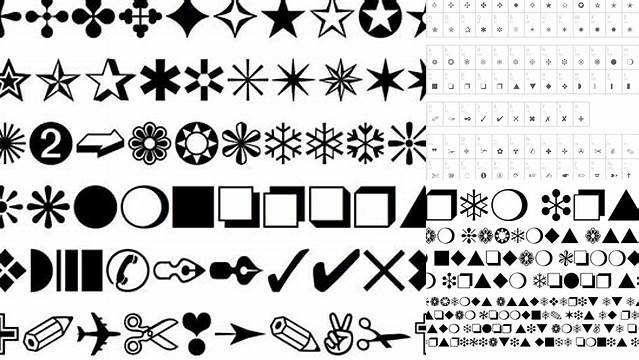
Hey there, design enthusiasts! Ready to dive into the wonderful world of Zapf Dingbats? These quirky symbols are more than just a font; they're a secret weapon for adding flair and personality to your projects. And the best part? You can get the Zapf Dingbats OTF font free download! Let's explore how to snag this fantastic font and how you can use it to spice up your designs.
What Exactly is Zapf Dingbats?
Alright, guys, let's get the basics down. Zapf Dingbats isn't your typical font with letters and numbers. Instead, it's a collection of awesome symbols and decorative elements. Think of it as a treasure chest filled with pointing hands, stars, checkmarks, snowflakes, and a whole bunch of other cool icons. Created by the legendary Hermann Zapf, this font has been around for ages and has become a classic for good reason. It's like having a built-in library of visual cues at your fingertips, perfect for adding a touch of whimsy or emphasizing important information. So, if you're looking to go beyond the standard text, Zapf Dingbats is your go-to font. Using these symbols is super simple, and you can easily incorporate them into your existing designs. It is an absolute blast adding visual interest to your text!
This font is incredibly versatile. You can use it for anything from creating eye-catching bullet points and call-out boxes to designing unique logos and website elements. The possibilities are practically endless! Whether you're working on a professional project or a personal one, Zapf Dingbats can elevate your design and make it more memorable. It's particularly great for adding a touch of personality to formal documents, or for creating a playful feel in invitations and greeting cards. It's also a fantastic choice for highlighting key information in presentations or reports, making your content more engaging and easier to digest. This font truly shines when you're aiming to make your designs stand out from the crowd. It gives you an edge. With its charming collection of symbols, Zapf Dingbats lets you express yourself in a way that words alone sometimes can't. Ready to add a touch of elegance to your designs? The classic nature of the font makes it a timeless choice, ensuring that your designs will look great for years to come. The beauty of Zapf Dingbats lies in its simplicity and elegance. It’s a font that instantly adds a touch of sophistication to your work. So why settle for boring bullet points when you can use a stylish hand pointing right? It’s the small details like these that make a big difference in your overall design.
Tips and Tricks for Using Zapf Dingbats
Ready to become a Zapf Dingbats pro? Here are some tips and tricks to help you get the most out of your Zapf Dingbats OTF font free download! First off, consider the context. Zapf Dingbats works best when used sparingly. Don't overdo it. A few well-placed symbols can make a big impact, but too many can clutter your design and distract the viewer. Think of the symbols as accent pieces, not the main course. Second, choose the right symbols for the job. Each dingbat has a specific meaning or visual cue. Select symbols that complement your message and enhance your design. For example, use a pointing hand to draw attention to a call-to-action, or a checkmark to signify completion. Third, pay attention to the size and scale of the dingbats. Adjust the size of the symbols to match the overall design of your project. You want them to be visible, but not overpowering. You might need to experiment to find the perfect balance.
Fourth, experiment with color and contrast. Don't be afraid to use different colors for your dingbats to add visual interest and make them pop. Consider the contrast between the dingbat and the background, and ensure that the symbol is easily readable. Fifth, combine Zapf Dingbats with other fonts. Pair Zapf Dingbats with a clean, readable font for your main text. This creates a balanced and visually appealing design. Sixth, use Zapf Dingbats consistently throughout your design. This helps create a sense of unity and professionalism. Seventh, get inspired! Look at examples of how other designers are using Zapf Dingbats to get ideas and inspiration. Explore design websites, magazines, and other sources of inspiration to see the font in action. Finally, have fun! Zapf Dingbats is a playful and creative font. Enjoy experimenting with different symbols and combinations, and don't be afraid to break the rules. Use it to express your creativity and to add a personal touch to your designs. Following these tips and tricks will help you use the Zapf Dingbats font to create stunning designs. With a bit of practice, you'll be a dingbat design master in no time!
Where Can I Use Zapf Dingbats?
So, where can you actually unleash the power of your Zapf Dingbats OTF font free download? The short answer is: pretty much anywhere! Zapf Dingbats is incredibly versatile and can be used in a wide variety of projects. It's a fantastic choice for creating eye-catching bullet points and lists. Instead of the boring old dots or squares, you can use cool symbols to add visual interest and make your lists more engaging. It's perfect for designing invitations, greeting cards, and other stationery. The unique symbols can add a touch of personality and make your designs stand out. It is great for creating logos and branding materials. The distinctive dingbats can be used to create unique and memorable logos and brand identities. It works well for designing website elements, such as buttons, icons, and navigation elements. The symbols can be used to make your website more visually appealing and user-friendly. You can use them to enhance presentations and reports. The dingbats can be used to highlight key information and to make your presentations more engaging.
It is also awesome for creating social media graphics and marketing materials. The symbols can be used to grab attention and to make your social media posts more shareable. It is great for adding a playful touch to any type of design project. With the wide range of symbols available, you can add personality and visual interest to any project. Use them to create unique designs for both personal and professional projects. From creating eye-catching headlines to designing decorative elements, the font is perfect for a wide range of design applications. So, whether you're designing a website, creating marketing materials, or designing a personal project, Zapf Dingbats can add a touch of personality and visual interest. The possibilities are truly endless, so unleash your creativity and start designing with this unique and versatile font! Also, remember that Zapf Dingbats can be used in both print and digital designs, making it a versatile addition to your font library. It is also worth mentioning that the font is a timeless classic that continues to be popular among designers of all levels. By choosing the right symbols and using them strategically, you can create stunning designs that are both visually appealing and informative.
Troubleshooting Common Issues with Zapf Dingbats
Sometimes, you might run into a few bumps along the road when working with your Zapf Dingbats OTF font free download. Here are some common issues and how to solve them: First, the font isn't showing up in your design software. If you've installed the font and it's not appearing in your font menu, try restarting your design software. If that doesn't work, make sure the font is installed correctly in your operating system. Double-check your font management settings. Second, the symbols aren't displaying correctly. If you're seeing gibberish characters instead of the Zapf Dingbats symbols, make sure you've selected the Zapf Dingbats font in your design software. Also, remember that the symbols are accessed via different keyboard keys. You might need to consult a character map or glyphs panel to find the correct key for each symbol. Third, the symbols look blurry or pixelated. If your symbols look blurry or pixelated, make sure you're using the OTF version of the font, as this format offers better quality and scalability. Also, make sure the symbols are being rendered at an appropriate size and resolution for your project. Fourth, the font is not compatible with your software. Ensure that your design software supports OTF fonts. Most modern design programs, such as Adobe Creative Suite and Affinity Designer, support this format. Fifth, the symbols are not printing correctly. If your Zapf Dingbats symbols are not printing correctly, ensure that you've embedded the font in your document. Also, check your printer settings to make sure the font is being rendered at the correct resolution.
If you're still having trouble, try reinstalling the font. Download a fresh copy of the font and reinstall it, ensuring that you're following the correct installation instructions for your operating system. Contact the font provider. If you've exhausted all troubleshooting steps, consider reaching out to the provider of the font for additional support. They might be able to offer further assistance in resolving the issue. By following these troubleshooting tips, you can overcome any common issues. You will be able to fully enjoy your Zapf Dingbats font and incorporate its unique symbols into your designs. Remember, it's often a simple fix, and with a little patience, you'll be back to creating amazing designs in no time. These are the most common issues that you might encounter, but in most cases, they're easily resolved. If you get a handle on these problems, you'll be able to solve almost any Zapf Dingbats-related challenges. Remember that the key is to remain calm and methodical. Good luck, and have fun creating with Zapf Dingbats!
Final Thoughts: Embrace the Dingbats!
So, there you have it, guys! A comprehensive guide to the wonderful world of Zapf Dingbats. From understanding what they are, to how to get your Zapf Dingbats OTF font free download, to using them effectively in your designs, you're now well-equipped to start adding some visual flair to your projects. These symbols are a fantastic way to add personality and visual interest to your designs. Remember, the key is to have fun and to experiment with different combinations and applications. Don't be afraid to get creative and to let your imagination run wild. With the right approach, Zapf Dingbats can transform your designs from ordinary to extraordinary. So, go ahead and explore the possibilities! With the tips and tricks provided, you're ready to start using this timeless font and create designs that stand out.
Whether you're a seasoned designer or a beginner, Zapf Dingbats is a valuable tool to have in your design arsenal. The font's unique charm and versatility make it suitable for a wide range of design applications. Enjoy the process of discovering new and creative ways to use the symbols. The most important thing is to embrace the joy of design. And with Zapf Dingbats by your side, your projects are sure to shine. So go out there and create some amazing designs!